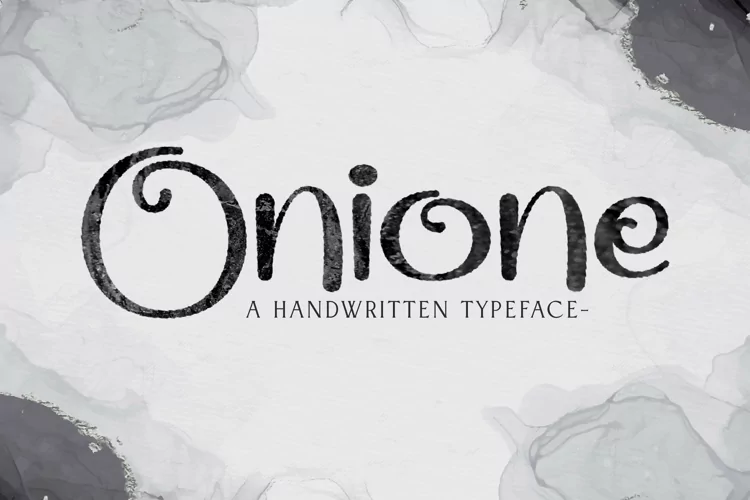
Onione is a Handwritten curly typeface. Perfect for display, quotes, poster, merchandise, packaging, branding, logo, logotype, emblem, badges, business card, print, t-shirt, and many more.